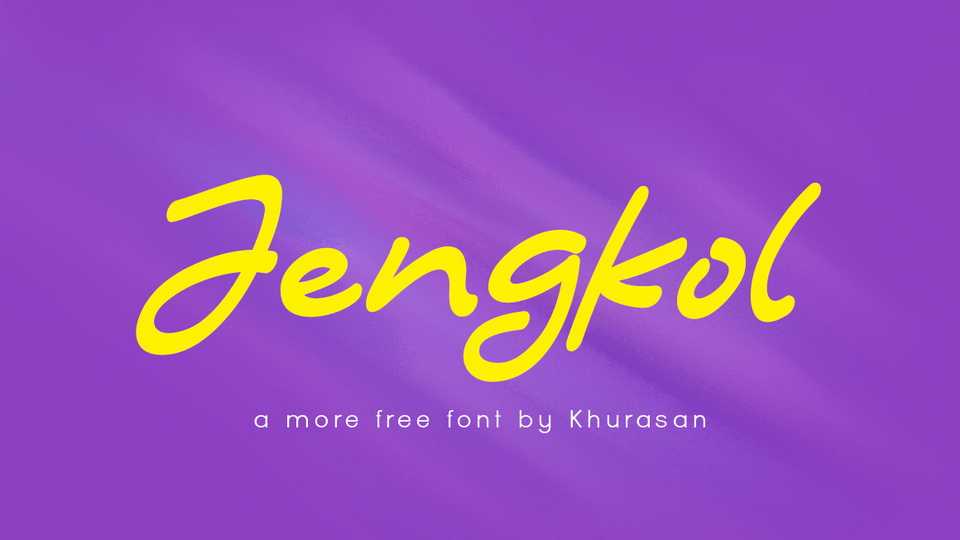
Download Jengkol font, a relaxed handwritten typeface. This versatile script font has a wide spectrum of applications ranging from greeting cards to headlines and is guaranteed to add a trendy feel to your next project.